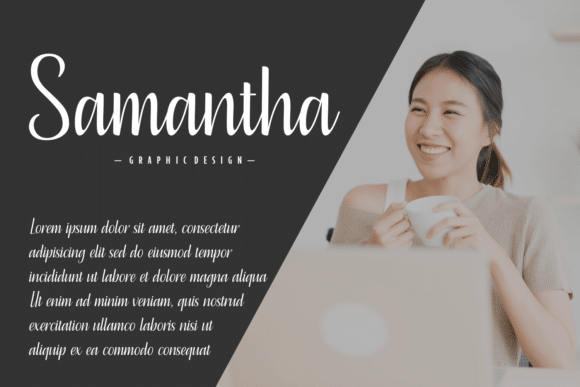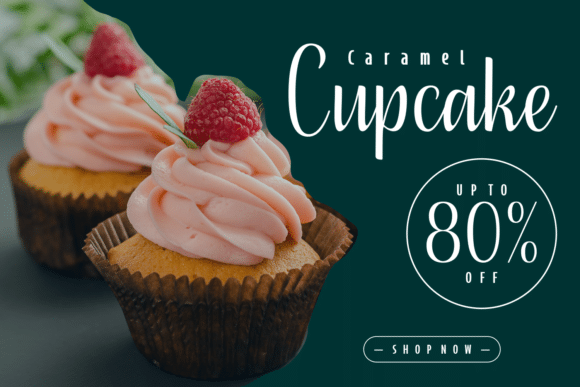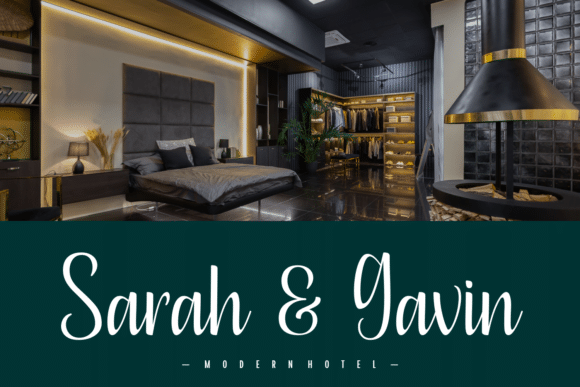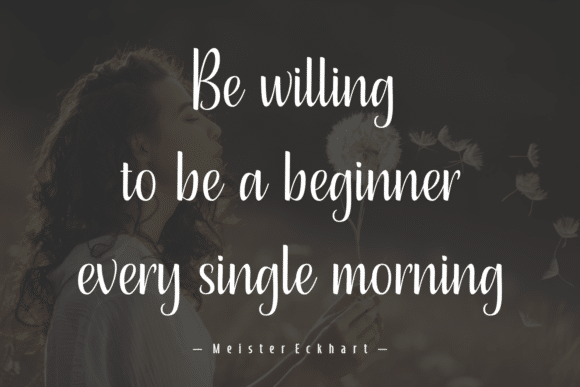
Tasteful Sandwich Font
Tasteful Sandwich is a delicate and well-balanced script font. It looks stunning on wedding invitations, thank you cards, quotes, greeting cards, logos, business cards, and every other design which needs a customized touch.